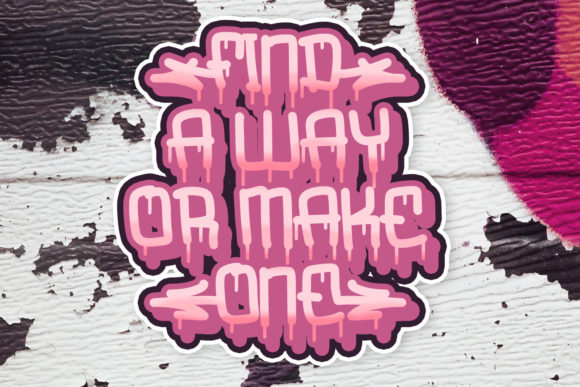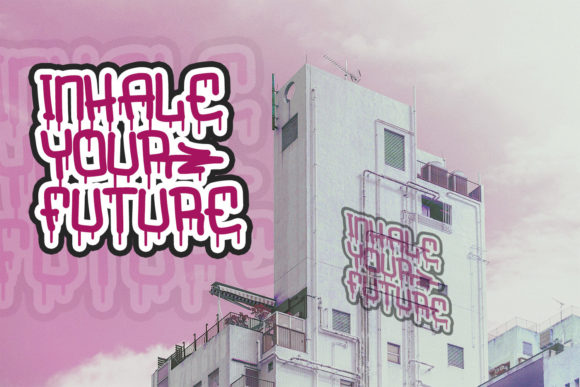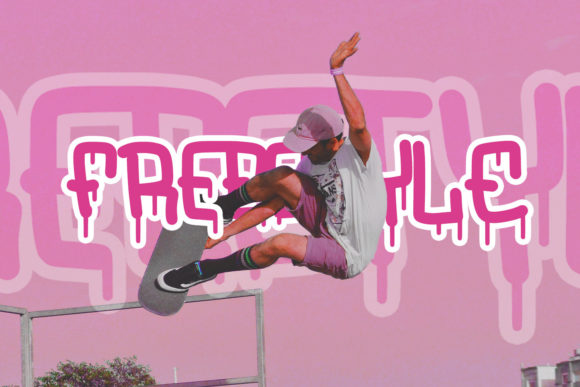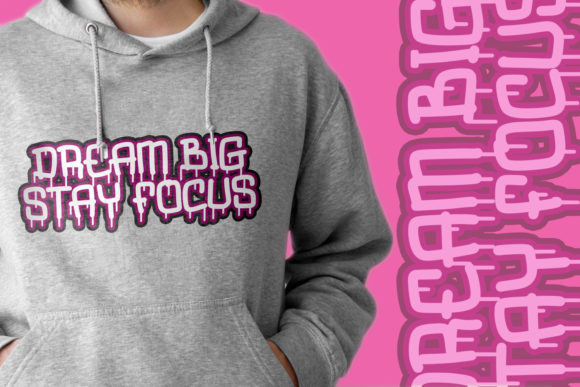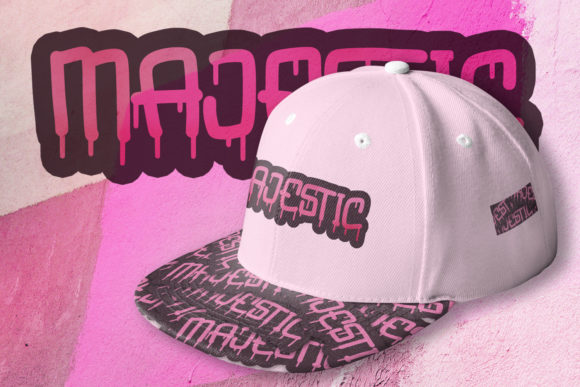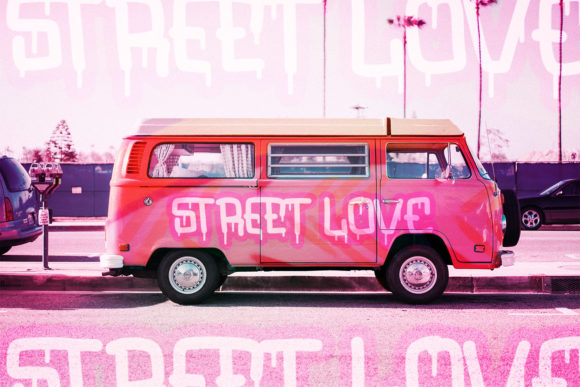
Introduction to Mostbreak Font Font
Fonts play a crucial role in design, and the Mostbreak Font font is a typeface that brings both character and versatility to any project. Whether you’re working on a branding project, a website, or a print design, the Mostbreak Font font offers a unique style that can elevate your work.
Mostbreak is a dramatic, graffiti styled display font, that features a street art vibe.
This font is suitable for designs like jerseys, sportswear, skateboard and more .
Key Features of Mostbreak Font Font
Why Choose Mostbreak Font Font?
The Mostbreak Font font is more than just a typeface – it’s a design tool that helps you communicate your message with style and clarity. Its unique character set and versatile design make it suitable for a wide range of applications, from elegant invitations to bold headlines.
With its carefully crafted letterforms and balanced proportions, the Mostbreak Font font ensures readability and visual appeal across all mediums.
What makes Mostbreak Font font special?
The Mostbreak Font font stands out with its unique design, exceptional readability, and versatility across various design applications.